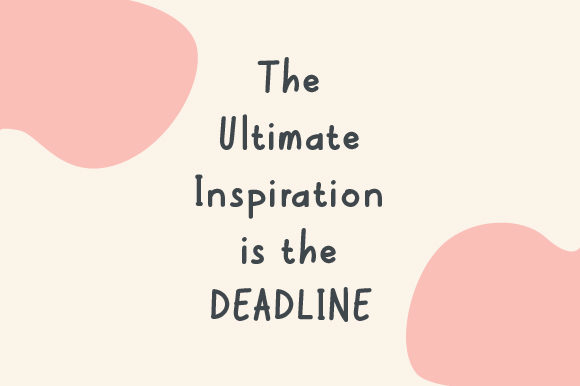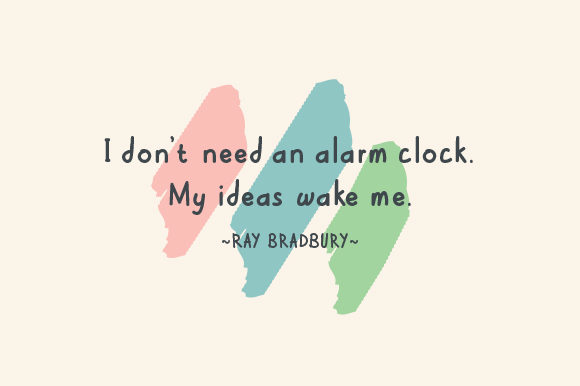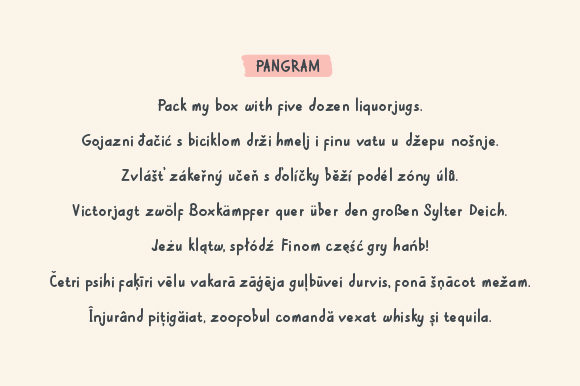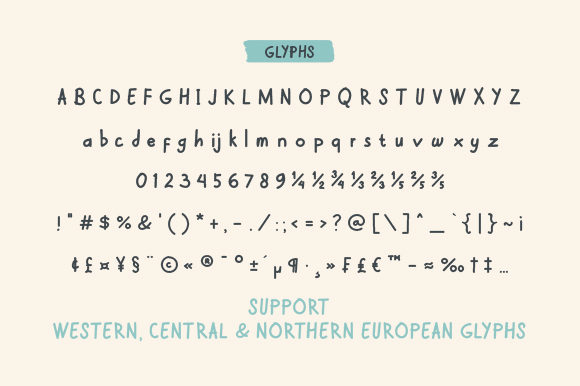
Dreiton Font: The Sweet and Friendly Handwritten Font for Your Creative Projects
Are you a designer, crafter, or DIY enthusiast looking for a font that can add a personal touch to your creative projects? Look no further than Dreiton Font, a sweet and friendly handwritten font that’s perfect for a wide range of designs. With its natural and unique style, Dreiton Font is incredibly versatile and can be used for everything from greeting cards and invitations to branding and advertising materials.
The Characteristics of Dreiton Font
Dreiton Font is a handwritten font that’s characterized by its sweet and friendly feel. Its natural and unique style makes it stand out from other fonts, and its versatility ensures that it can be used for a wide range of projects. Here are some of the key characteristics of Dreiton Font:
- Handwritten style: Dreiton Font is a handwritten font that’s designed to look like it was written with a pen or pencil. This gives it a personal and unique feel that’s perfect for creative projects.
- Sweet and friendly: Dreiton Font has a sweet and friendly tone that’s perfect for projects that require a personal touch. It’s ideal for greeting cards, invitations, and other projects where you want to convey a sense of warmth and approachability.
- Natural and unique: Dreiton Font has a natural and unique style that’s unlike other fonts. Its irregularities and imperfections give it a handmade feel that’s perfect for crafters and DIY enthusiasts.
- Versatile: Dreiton Font is incredibly versatile and can be used for a wide range of projects. Whether you’re designing a greeting card, creating a brand identity, or making a craft, Dreiton Font is a great choice.
Uses for Dreiton Font
Dreiton Font is a versatile font that can be used for a wide range of projects. Here are some ideas for using Dreiton Font:
- Greeting cards and invitations: Dreiton Font is perfect for creating personalized greeting cards and invitations. Its sweet and friendly tone makes it ideal for special occasions like birthdays, weddings, and holidays.
- Branding and advertising: Dreiton Font can be used to create a unique and memorable brand identity. Its natural and unique style makes it stand out from other fonts, and its versatility ensures that it can be used for a wide range of marketing materials.
- Crafts and DIY projects: Dreiton Font is a great choice for crafters and DIY enthusiasts. It can be used to create personalized labels, tags, and other embellishments for crafts and DIY projects.
- Social media graphics: Dreiton Font can be used to create eye-catching social media graphics that stand out from the crowd. Its sweet and friendly tone makes it perfect for creating engaging and shareable content.
Tips for Using Dreiton Font
Here are some tips for using Dreiton Font:
- Use it with a simple background: Dreiton Font is a decorative font that works best with simple backgrounds. Avoid using it with busy or patterned backgrounds that might distract from the text.
- Experiment with colors: Dreiton Font looks great in a variety of colors. Experiment with different colors to find the one that works best for your project.
- Mix it with other fonts: Dreiton Font can be paired with other fonts to create a unique and interesting look. Try pairing it with a sans-serif font for a modern and elegant look.
- Use it for headings and titles: Dreiton Font is perfect for headings and titles. Its sweet and friendly tone makes it ideal for creating eye-catching headings that draw attention to your content.
| Font Name | Dreiton Font |
| Author | Dasukreation |
Dreiton Font is a sweet and friendly handwritten font that’s perfect for a wide range of creative projects. Its natural and unique style makes it incredibly versatile, and its sweet and friendly tone makes it ideal for projects that require a personal touch. Whether you’re a designer, crafter, or DIY enthusiast, Dreiton Font is a great choice for adding a personal touch to your creative projects. So why not give it a try and see what amazing things you can create?